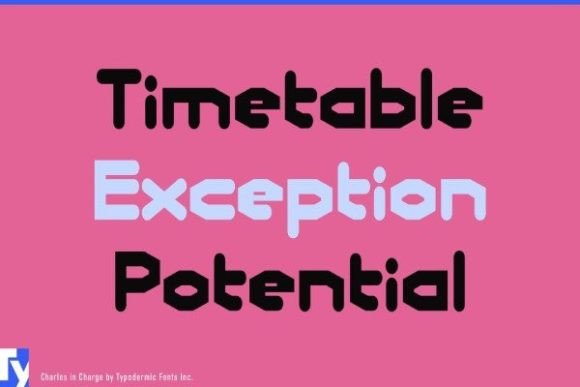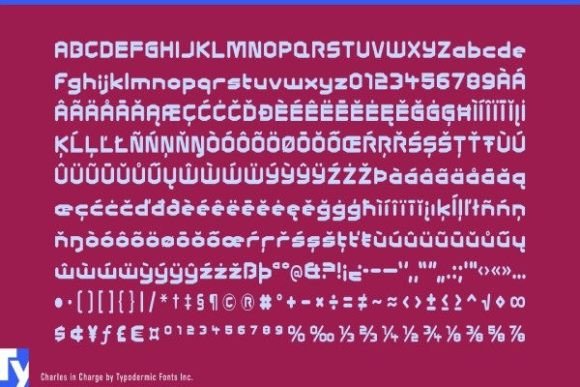
Discover the Futuristic Style of Charles in Charge Font
In the realm of typography, fonts play a pivotal role in defining the aesthetic and tone of any creative project. Whether you’re a designer, a crafter, or simply someone who appreciates the nuances of visual art, finding the right font can elevate your work from ordinary to extraordinary. This is where Charles in Charge Font comes into play, an angular display font that embodies a technical look, perfect for those seeking a modern appearance in their crafts.
What is Charles in Charge Font?
Charles in Charge Font is not just any ordinary font. It’s an angular display typeface that exudes a sense of modernity and technical sophistication. Its unique design elements make it stand out in the world of typography, offering a fresh and contemporary look that can transform any project it’s used in. Whether you’re working on a digital platform, a print project, or anything in between, this font is designed to give your work a cutting-edge appearance.
Key Features of Charles in Charge Font
- Angular and Technical Design: The font boasts an angular design with a technical aesthetic, making it perfect for projects that require a modern and sleek look.
- Versatility: Charles in Charge Font is incredibly versatile, suitable for a wide range of projects from digital interfaces to print materials.
- High Impact: Its unique design ensures that your text doesn’t just get noticed; it makes a statement.
- Easy to Read: Despite its modern and angular design, the font maintains a level of readability, making it practical for use in various contexts.
Why Choose Charles in Charge Font?
Choosing the right font for your project can be daunting, given the vast options available. However, Charles in Charge Font stands out for several reasons:
- Modern Aesthetic: In today’s fast-paced digital world, a modern aesthetic is crucial. This font provides that edge, ensuring your project looks contemporary and relevant.
- Creativity Unleashed: With Charles in Charge Font, you have the opportunity to get creative and produce spectacular masterpieces. Its unique design encourages experimentation and innovation.
- Instant Favorite: Once you add it to your fonts library, it quickly becomes a go-to choice for future projects, given its versatility and impact.
How to Use Charles in Charge Font Effectively
To make the most out of Charles in Charge Font, consider the following tips:
- Pair it Wisely: When using this font in a project, consider pairing it with complementary fonts to enhance readability and visual appeal.
- Experiment with Sizes: The font’s impact can be significantly altered by changing its size. Experiment with different sizes to achieve the desired effect.
- Consider the Context: While the font is versatile, ensure it aligns with the project’s overall theme and message.
Charles in Charge Font is a remarkable addition to any designer’s or crafter’s toolkit. Its angular, technical design, coupled with its versatility and modern aesthetic, makes it an excellent choice for those looking to give their projects a contemporary edge. By incorporating this font into your library, you’re not just adding another typeface; you’re opening up new possibilities for creativity and innovation in your work.